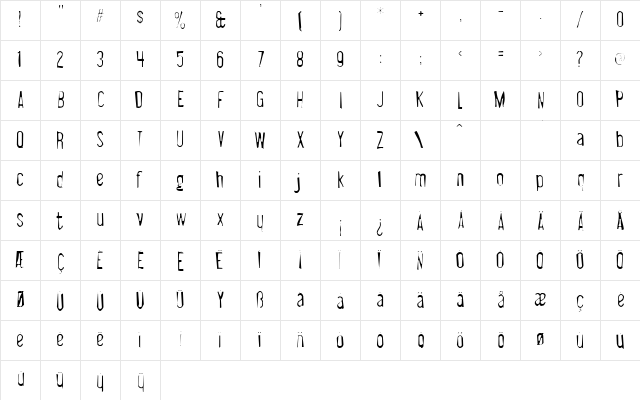
Libel Suit Gaunt Regular
Design Context for Libel Suit Gaunt Typeface
Libel Suit Gaunt is a composed and adaptable typeface that performs quietly and consistently across a wide range of design contexts.